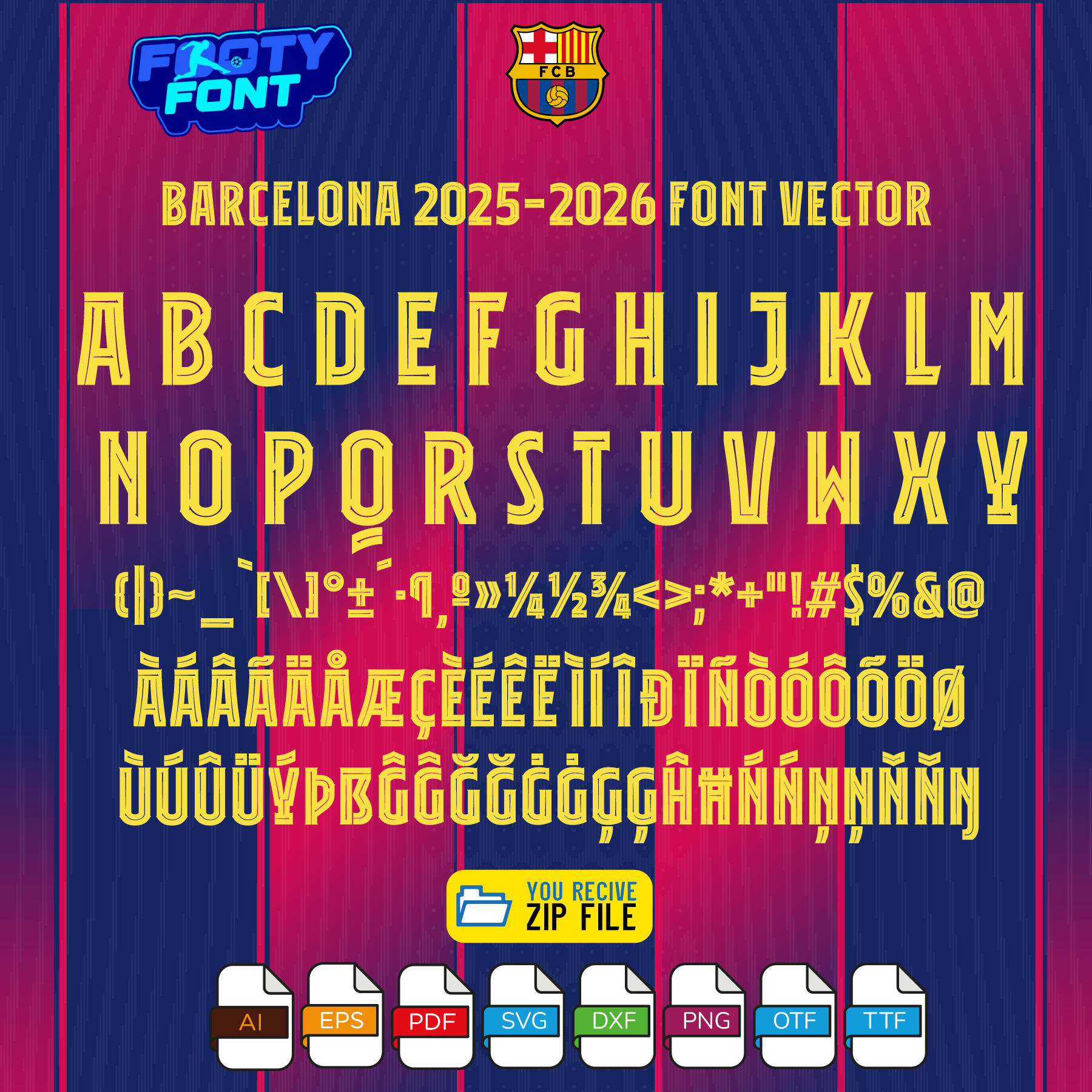
About the FC Barcelona 2025-2026 Football Font
Bring the magic of European nights at Camp Nou to your designs with this font, inspired by the FC Barcelona 2025-2026 UCL home kit. This is a high-quality typeface designed to replicate the look of the unique, custom font worn by Barça during their Champions League campaign, which is distinct from their domestic league font.
This font captures the style worn by the world-class new generation of La Masia graduates like Lamine Yamal 10, Rashford, raphinha and Pedri on the biggest stage in Europe. It’s perfect for fans creating their own custom jersey designs for personal use, digital posters celebrating a UCL victory, or any other project that shows your support for the Blaugrana in their quest for European glory.
Use this font to bring the Blaugrana’s European style into your designs—whether for custom jersey graphics, fan merchandise, posters, or social media content.